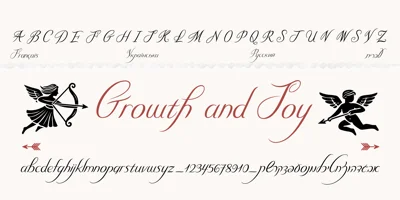
Lia Mia Font
Lia Mia Font is perfect for children's book illustrations, baby shower invitations, nursery wall art, toy packaging, kindergarten materials, feminine lifestyle blogs, craft projects, greeting cards, birthday party decorations, and any project that needs a sweet, playful, and endearing touch.
What makes Lia Mia Font exciting is its adorable charm and whimsical personality that instantly brings joy and warmth to any design. The typeface features soft, rounded letterforms with gentle curves that create a friendly, approachable aesthetic reminiscent of childhood innocence and carefree moments. Its delightful character design speaks to audiences seeking comfort, happiness, and positive emotions, making it the perfect choice for brands and projects that want to evoke feelings of love, care, and tender affection.
Lia Mia Font family includes regular weight with complete uppercase and lowercase letters, playful numerals, essential punctuation marks, and charming decorative elements. The typeface features carefully designed spacing and kerning that maintains excellent readability while preserving its cute, handwritten appearance that feels personal and heartfelt.
Whether you're designing for children's products, creating family-oriented marketing materials, or developing brand identity for caring services, Lia Mia Font provides the perfect typographic solution for projects that prioritize warmth and emotional connection. The font's sweet disposition and friendly nature make it particularly effective for educational materials, parenting resources, and community-focused initiatives. Its versatile cuteness translates beautifully across digital platforms and print applications, ensuring your message communicates love, kindness, and genuine care that resonates with families and nurturing audiences.